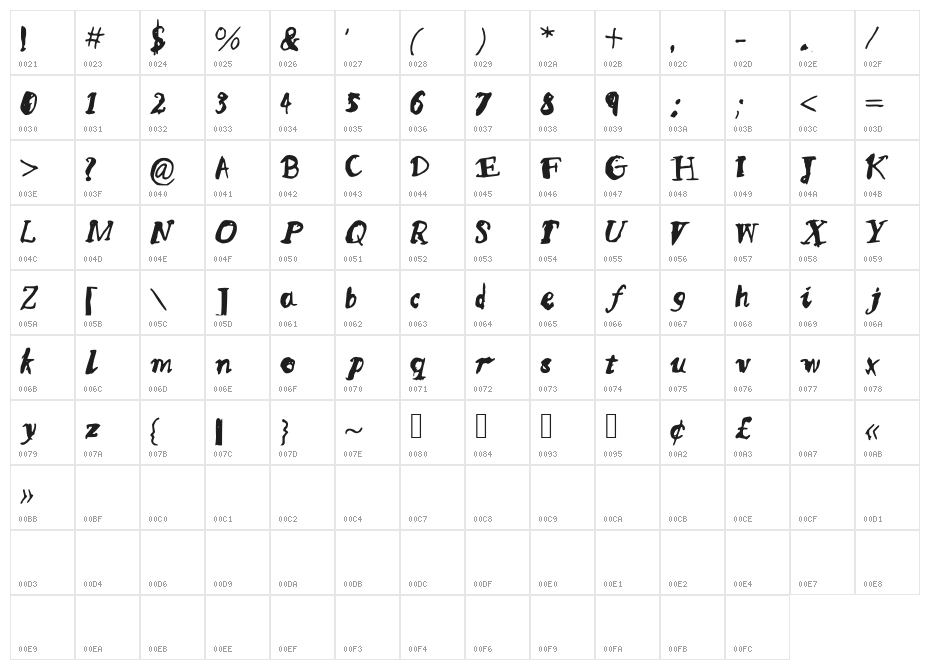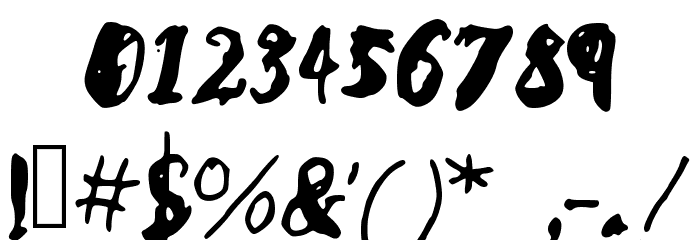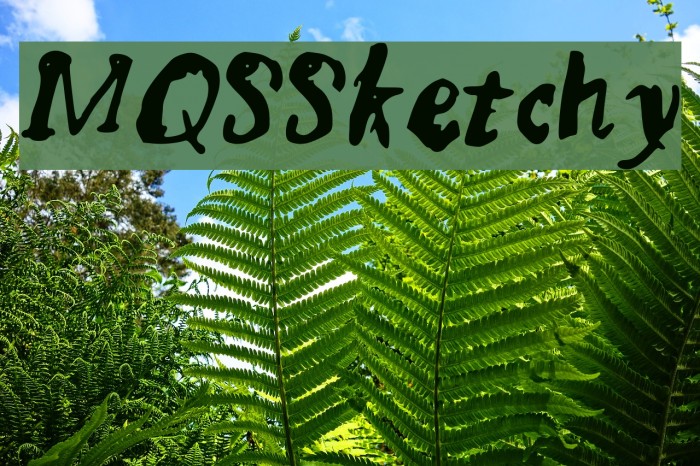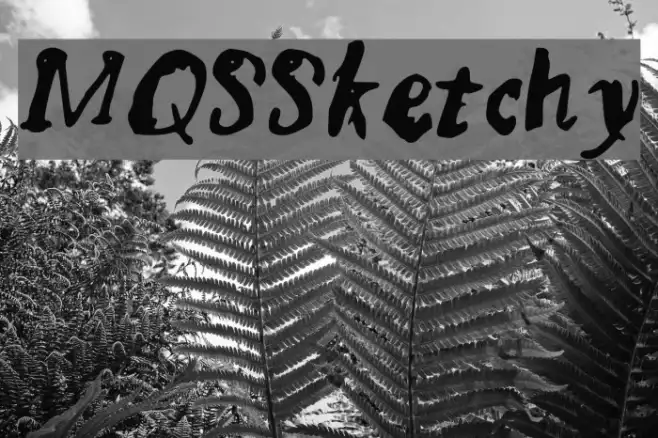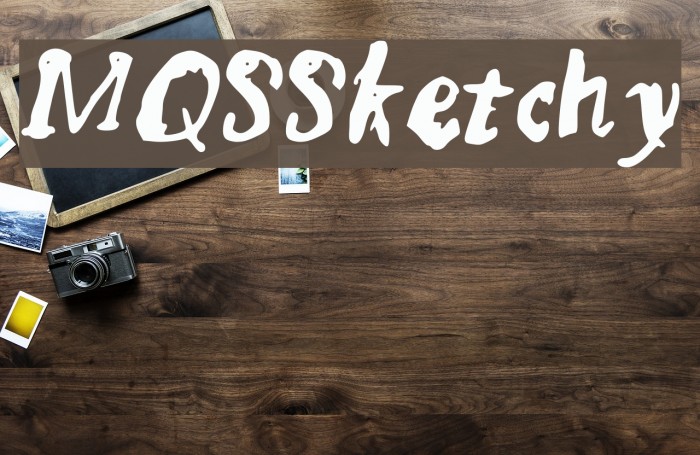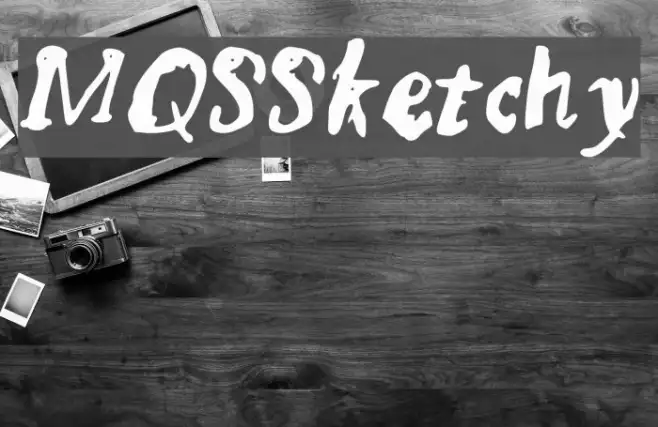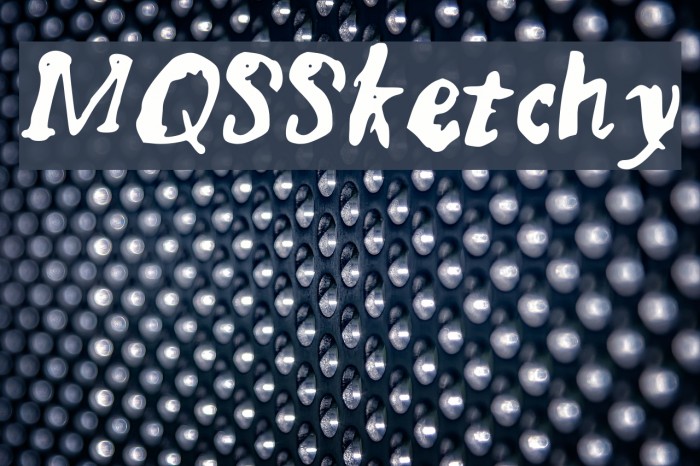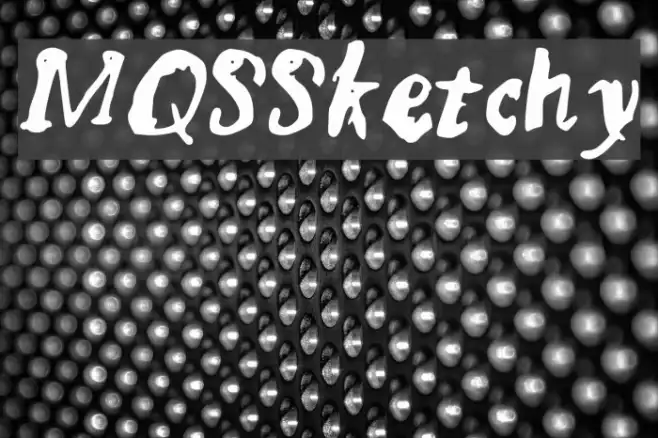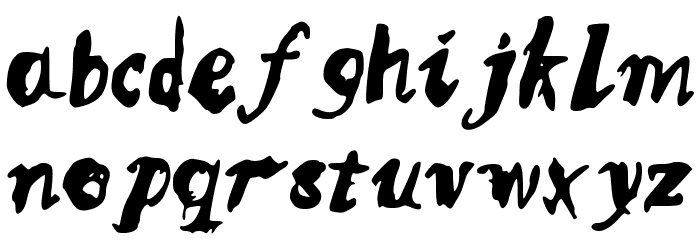
MQSSketchy Font
MQSSketchy Description
This font exhibits a playful and artistic style, characterized by its sketchy, hand-drawn appearance. The letters have an irregular, organic form, with varying stroke thickness that adds a dynamic and lively feel. The uppercase and lowercase letters maintain a consistent style, with exaggerated curves and angles that give the font a whimsical and informal look. The numbers and special characters follow the same sketchy aesthetic, ensuring a cohesive appearance across all glyphs. This font is ideal for projects that require a creative and informal touch, such as children's book covers, artistic posters, or playful branding materials.